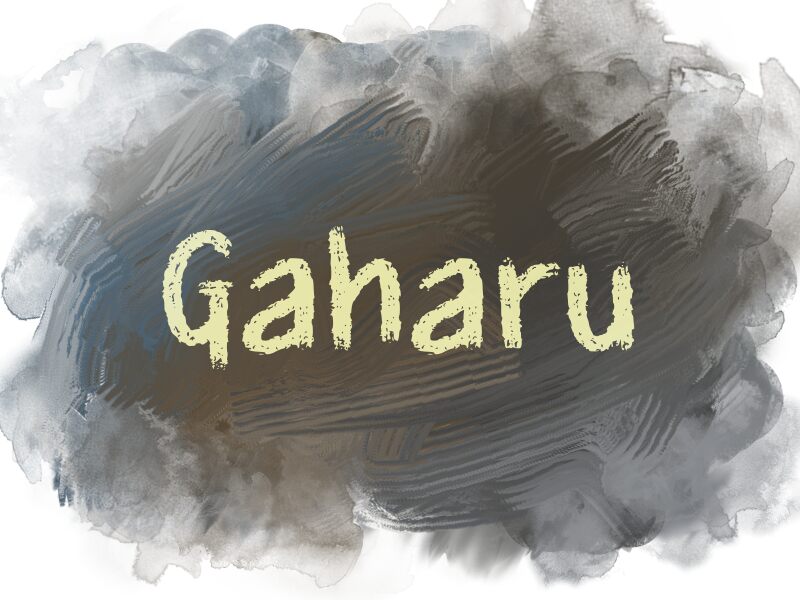
Gaharu
Gaharu, a captivating script font created by wep, exudes a raw and gritty charm. Its bold, organic strokes and irregular edges lend an air of authenticity, evoking a sense of individuality and rebellious spirit. The font's dynamic, hand-crafted aesthetic adds a touch of edginess, making it a compelling choice for projects seeking to convey a bold, unconventional tone.
Gaharu's versatility shines through, lending itself well to a variety of design applications. From eye-catching headlines and impactful logos to expressive branding materials and unique packaging designs, this font's distinctive character has the power to make a lasting impression. Its ability to infuse any project with an unapologetic, high-energy vibe makes it a versatile tool for designers seeking to push the boundaries of traditional typographic conventions.